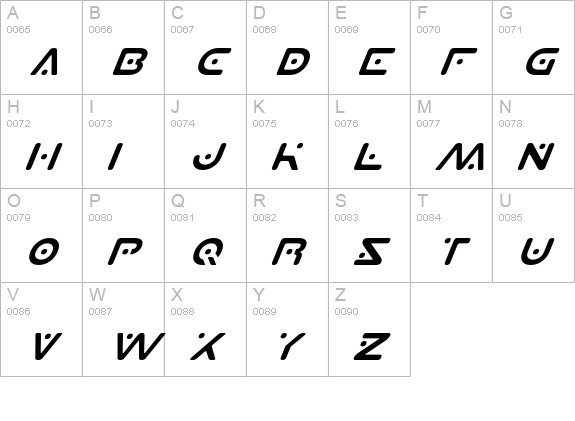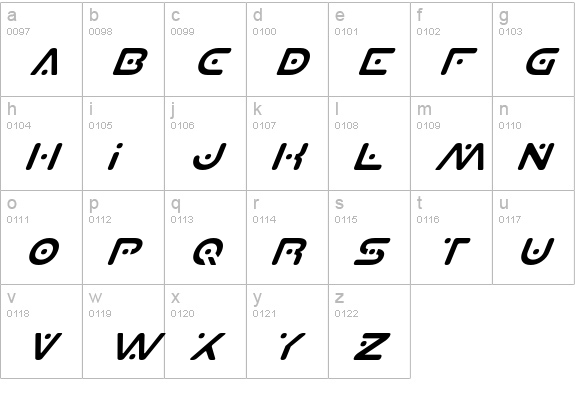
Planet S Italic is a distinctive, italic variant in the Planet typeface family \xE2\x80\x94 well suited to design and typography projects.
Planet S Italic is a strikingly modern and stylish font that effortlessly combines elegance with a touch of playfulness. Its sleek and flowing design captures attention and adds a touch of sophistication to any project. Whether you are creating a logo, designing a website, or crafting eye-catching promotional materials, Planet S Italic is the perfect choice to make a lasting impression. With its unique and distinctive letterforms, this font is versatile and adaptable, making it suitable for a wide range of design projects. The slanted and italicized nature of Planet S Italic adds a dynamic and energetic feel, making it ideal for conveying a sense of movement and action. One of the most appealing aspects of Planet S Italic is that it is freely available to download at FontsMarket.com. This means that you can enhance your designs with this stunning font without any financial restrictions. Whether you are a professional designer or a hobbyist, having access to high-quality and free resources like Planet S Italic allows you to fully unleash your creativity and bring your vision to life. The attention to detail and craftsmanship in Planet S Italic is evident in every curve and stroke. The smooth lines and balanced proportions create a harmonious and visually pleasing aesthetic. This font is designed to be highly legible, ensuring that your message is effortlessly communicated to your audience. Planet S Italic is not just a font; it is a statement. It exudes confidence, creativity, and a contemporary edge. It is a font that demands attention and leaves a lasting impression. So why settle for ordinary when you can elevate your designs with the extraordinary? Download Planet S Italic for free at FontsMarket.com and embark on a design journey that is bound to captivate and inspire.